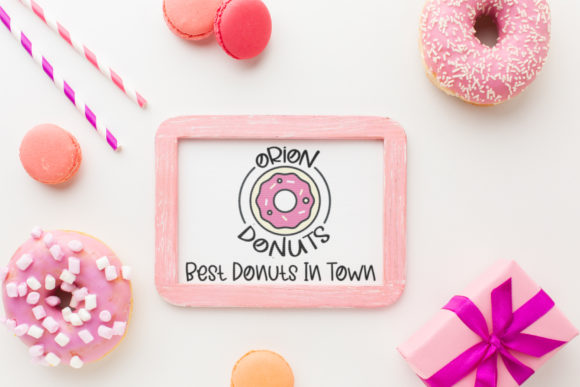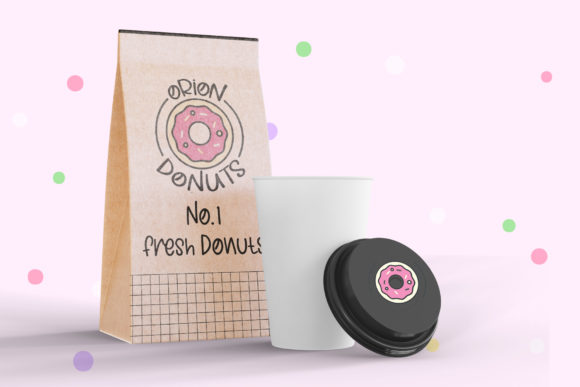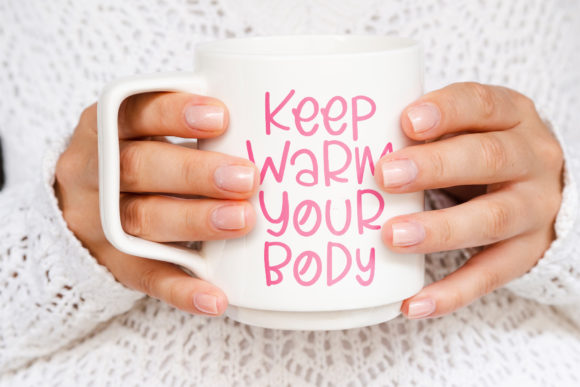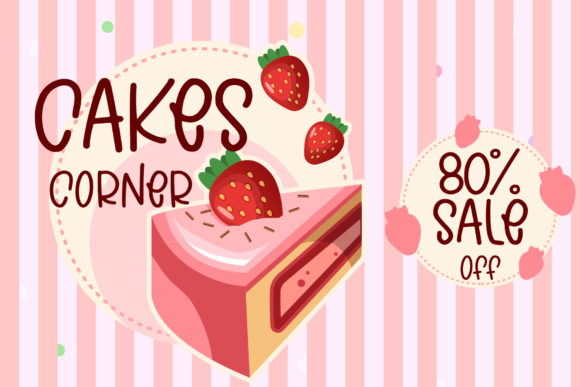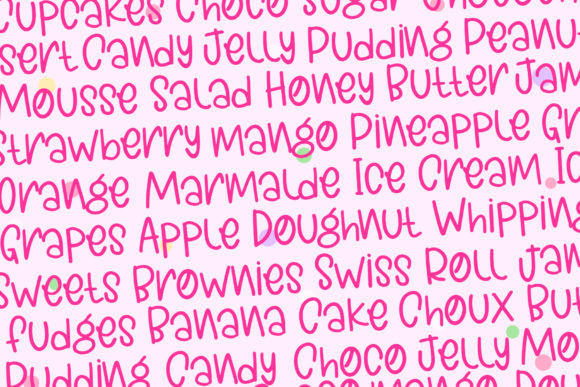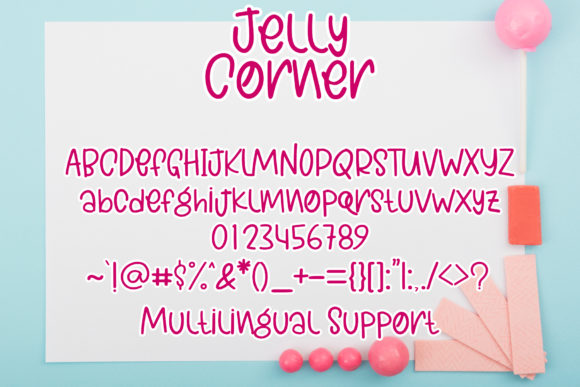
Introduction to Jelly Corner Font
Do you remember the thrill of discovering a hidden stash of colorful markers or a fresh set of paints on a Saturday morning? The excitement of unleashing your creativity and bringing your imagination to life? That’s exactly the feeling you’ll get when you work with the Jelly Corner Font. This delightful handwritten font is a treasure trove of design possibilities, waiting to elevate your creative project to new heights.
Whether you’re a seasoned designer or a hobbyist looking for a new design resource, the Jelly Corner Font is a valuable addition to your toolkit. Its high-quality design and transparent background make it perfect for crafting, digital designing, presentations, or greeting card making. And the best part? It’s available for free download, making it an accessible and affordable choice for anyone looking to add a personal touch to their work.
Key Features of Jelly Corner Font
- Unique and creative design, perfect for various projects and designs.
- High-quality font, ideal for professional and creative projects, including graphics, logos, and more.
- Comes with a transparent background, allowing for seamless integration into any design.
- Includes a single font style, with various point sizes and resolutions available, from 72 dpi to 300 dpi.
- Perfect for designers and artists working on creative projects, including digital art, graphics, and more.
Honest Review: Jelly Corner Font
I recently stumbled upon the Jelly Corner Font while searching for free design resources for a creative project. I was pleasantly surprised by its high quality and unique design.
- ✨ The font has a transparent background, making it easy to use in various design applications.
- ✨ The font’s playful and whimsical design is perfect for projects that require a touch of creativity.
- ⚠️ The font is only available in a limited number of styles, which may not be suitable for more complex design projects.
- ⚠️ Some users may find the font’s design too bold or eye-catching, which may not be suitable for more subtle design projects.
Overall, I’m impressed with the Jelly Corner Font. It’s a great addition to any designer’s toolkit, especially for creative projects that require a high-quality, unique font. While it may have some limitations, I believe it’s a valuable resource for designers who want to add a touch of personality to their work.
How to Use Jelly Corner Font
To get the most out of the Jelly Corner Font, experiment with different font sizes, colors, and combinations. You can also use it as a background element or as a text overlay. Remember to adjust the transparency of the font to match your design’s background.
The Jelly Corner Font is perfect for creating invitations, social media graphics, and web design elements. Its unique design makes it stand out in any creative project. With a transparent background, you can easily integrate it into any design without worrying about background conflicts.